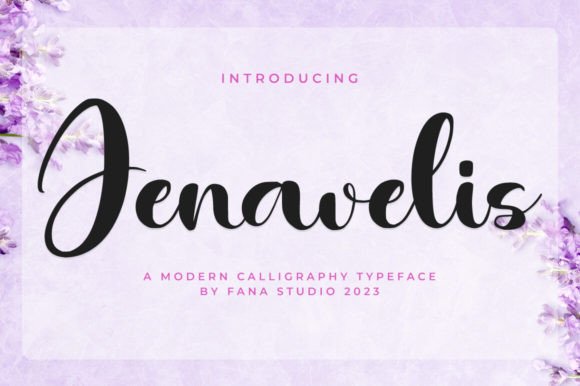
Step into the world of Jenavelis Script, a font woven with elegance and charm, like a delicate dance of ink on paper. Experience the allure of its swirling strokes, reminiscent of a calligrapher's masterful hand, as they caress your designs with a touch of sophistication.
Crafted with a keen eye for detail, Jenavelis Script captures the essence of handwritten beauty, transforming your words into captivating works of art. Its graceful curves and playful flourishes lend a personal touch to every letter, as if penned by a skilled artisan.
Immerse yourself in the versatility of Jenavelis Script, a font that effortlessly adapts to your creative visions. Whether you're crafting heartfelt Christmas card labels, designing enchanting invitations, or adding a touch of magic to your social media posts, Jenavelis Script seamlessly blends with your artistic style.
Explore the limitless possibilities that await you with Jenavelis Script. Let your imagination soar as you create captivating logos that leave a lasting impression, or design stationery that exudes elegance and timelessness. Transform your product packaging into a visual feast, captivating the eyes of your customers with its intricate details.
With Jenavelis Script, you hold the key to unlocking a world of beauty and creativity. Its enchanting aura will captivate your audience, leaving them spellbound by the sheer artistry of your designs. Embrace the power of Jenavelis Script and witness the transformation of your creative endeavors into masterpieces that inspire and enchant.